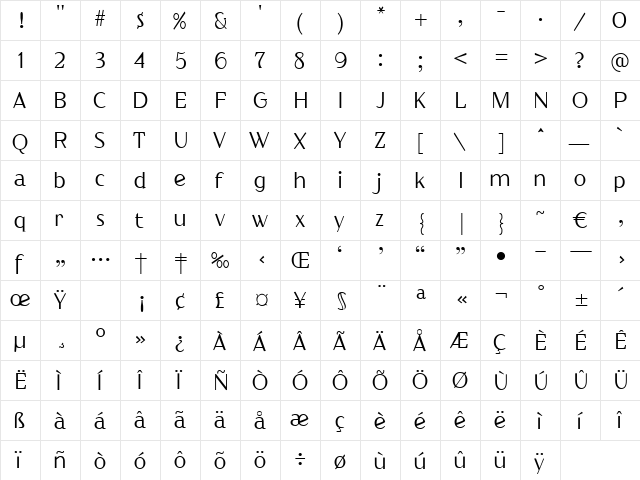
Lutetia Regular
Design Context for Lutetia Typeface
Lutetia takes a measured approach to typography — its balanced proportions and neutral character make it a reliable workhorse for both digital and print work.